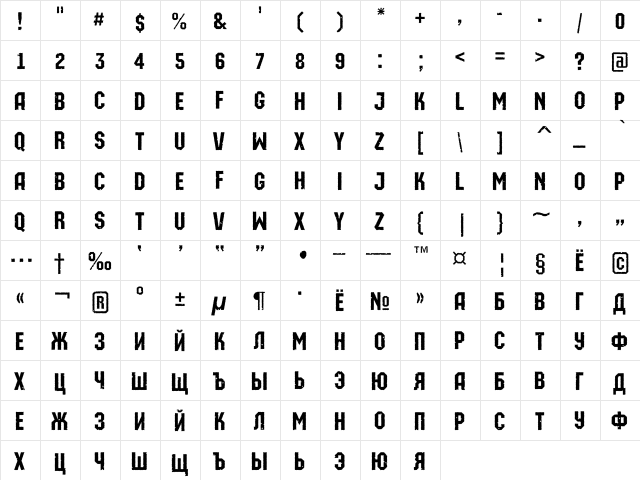
a_MachinaOrtoRg&Bt Normal
Design Context for a_MachinaOrtoRg&Bt Typeface
a_MachinaOrtoRg&Bt is a composed and adaptable typeface that performs quietly and consistently across a wide range of design contexts.